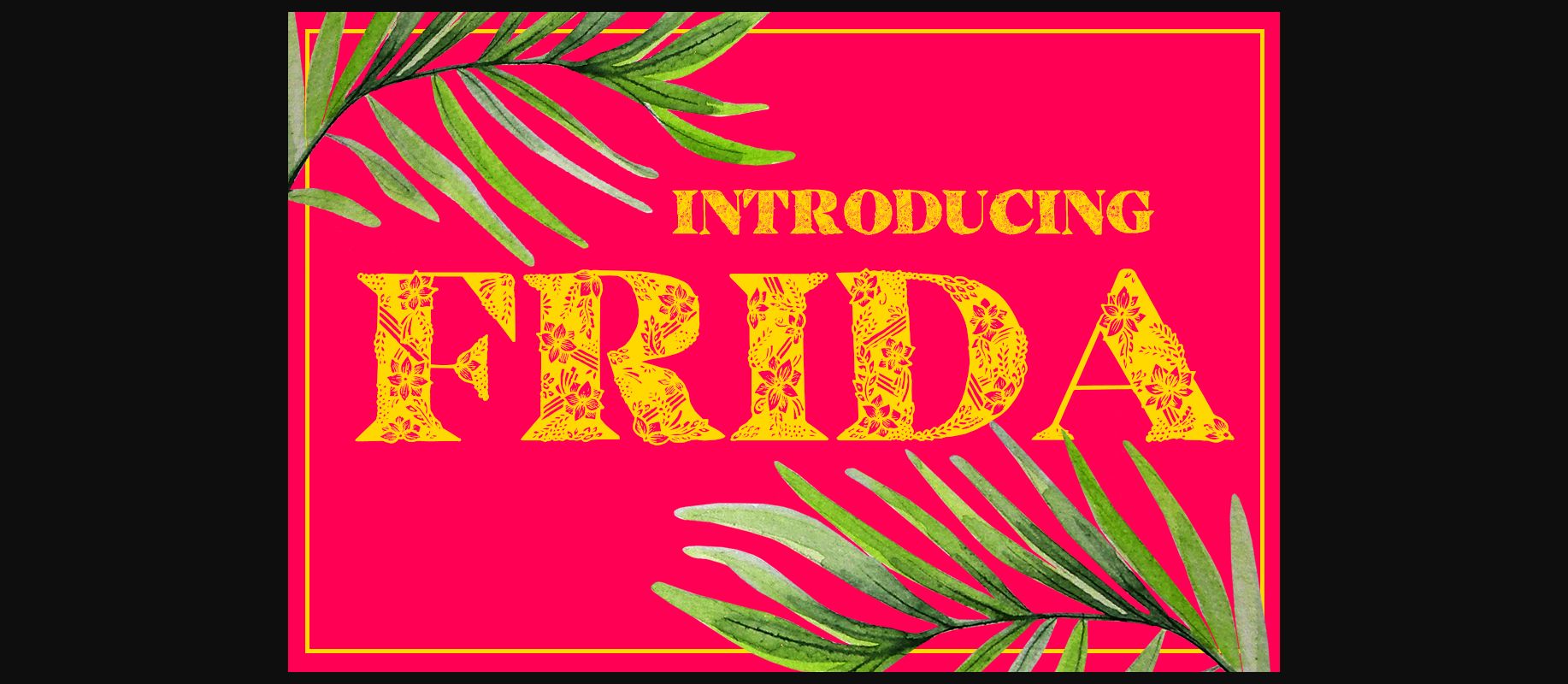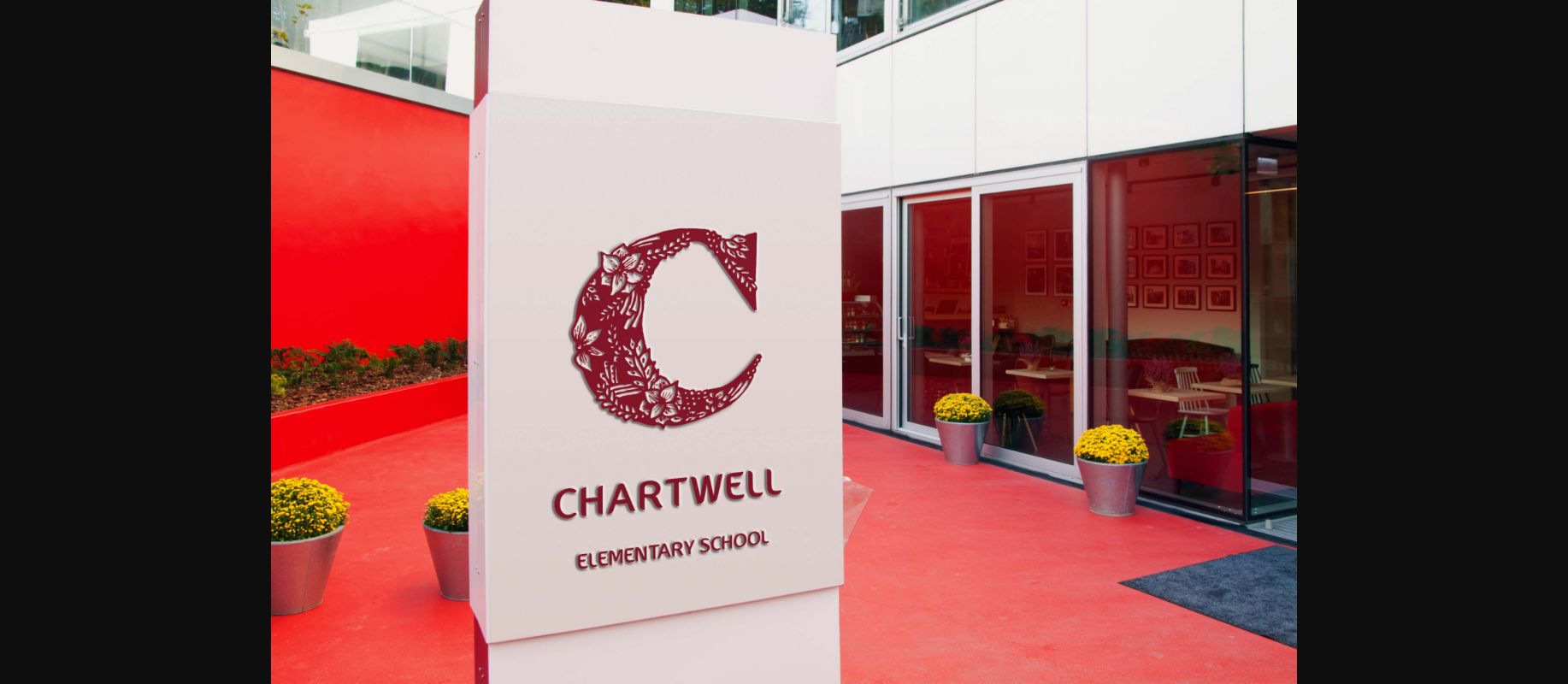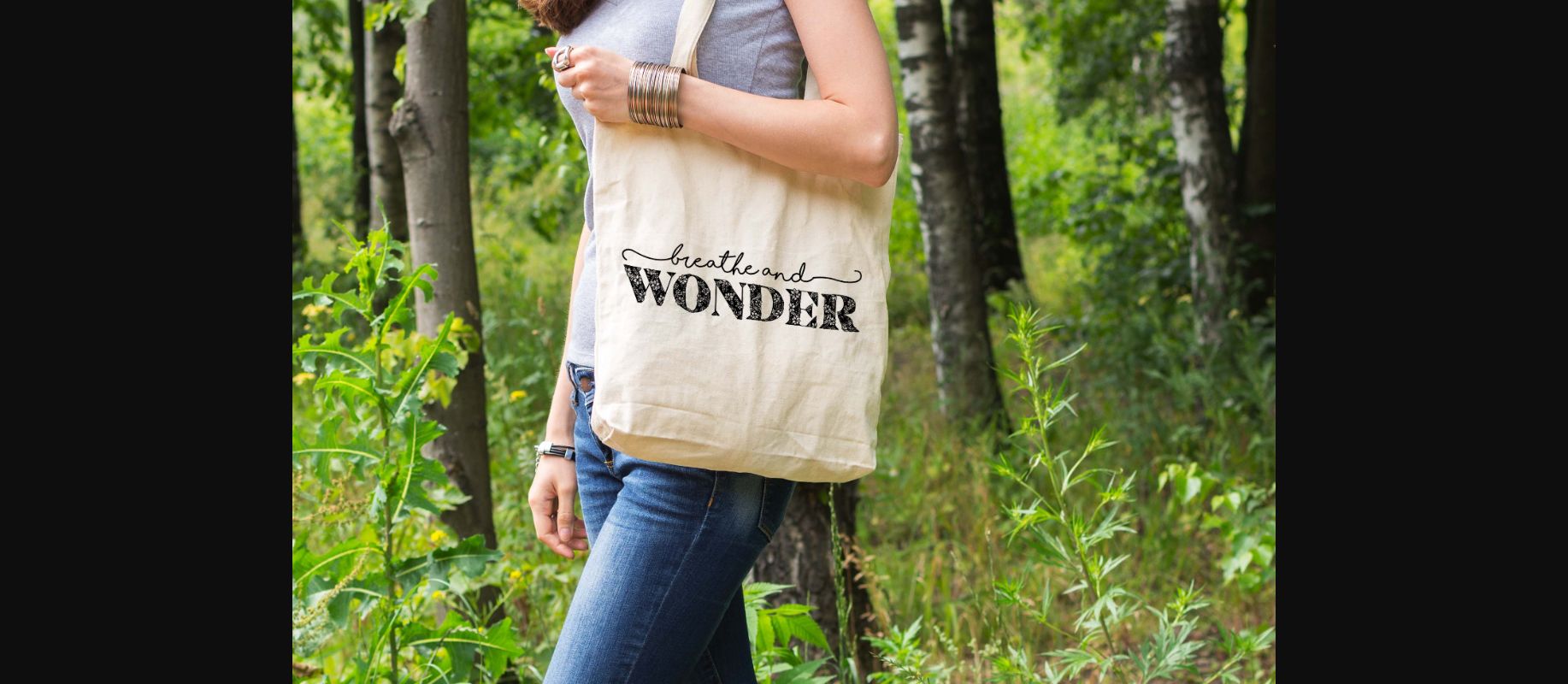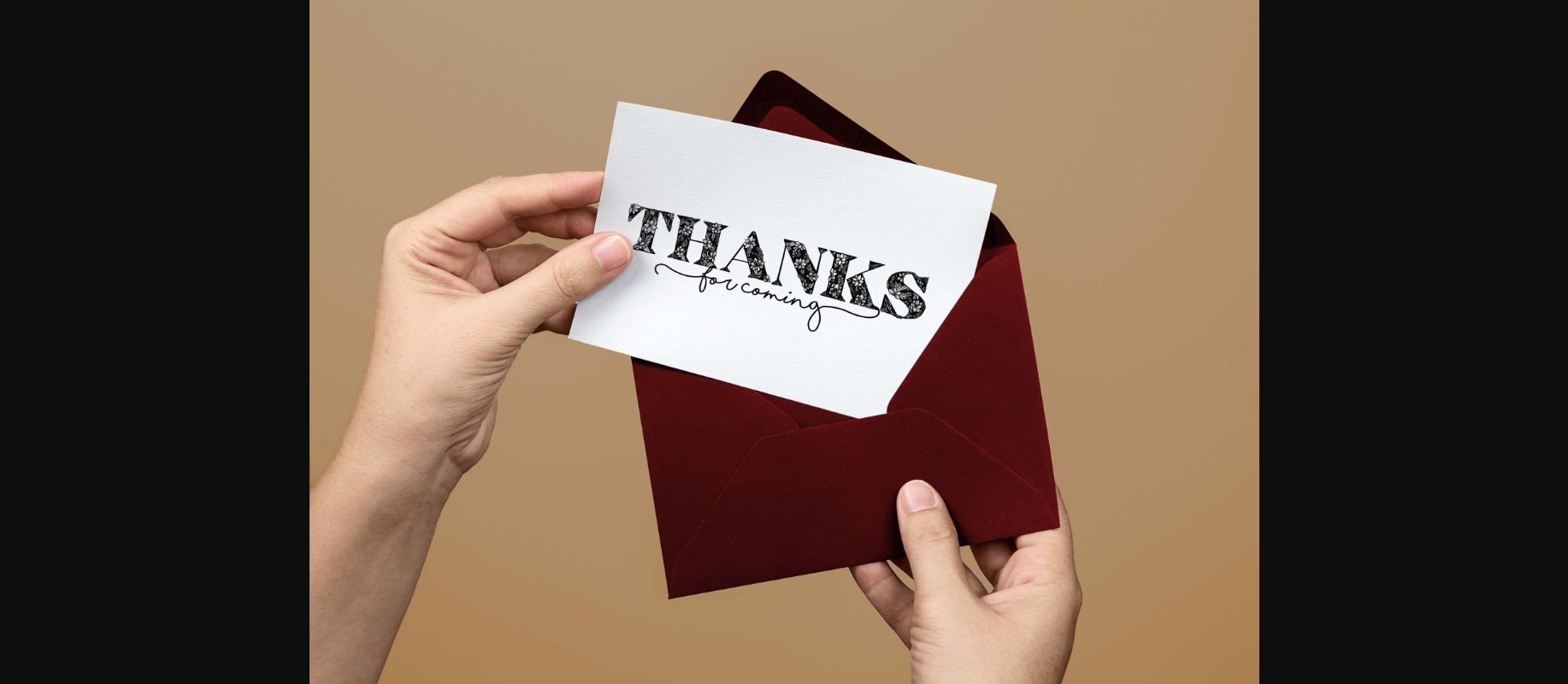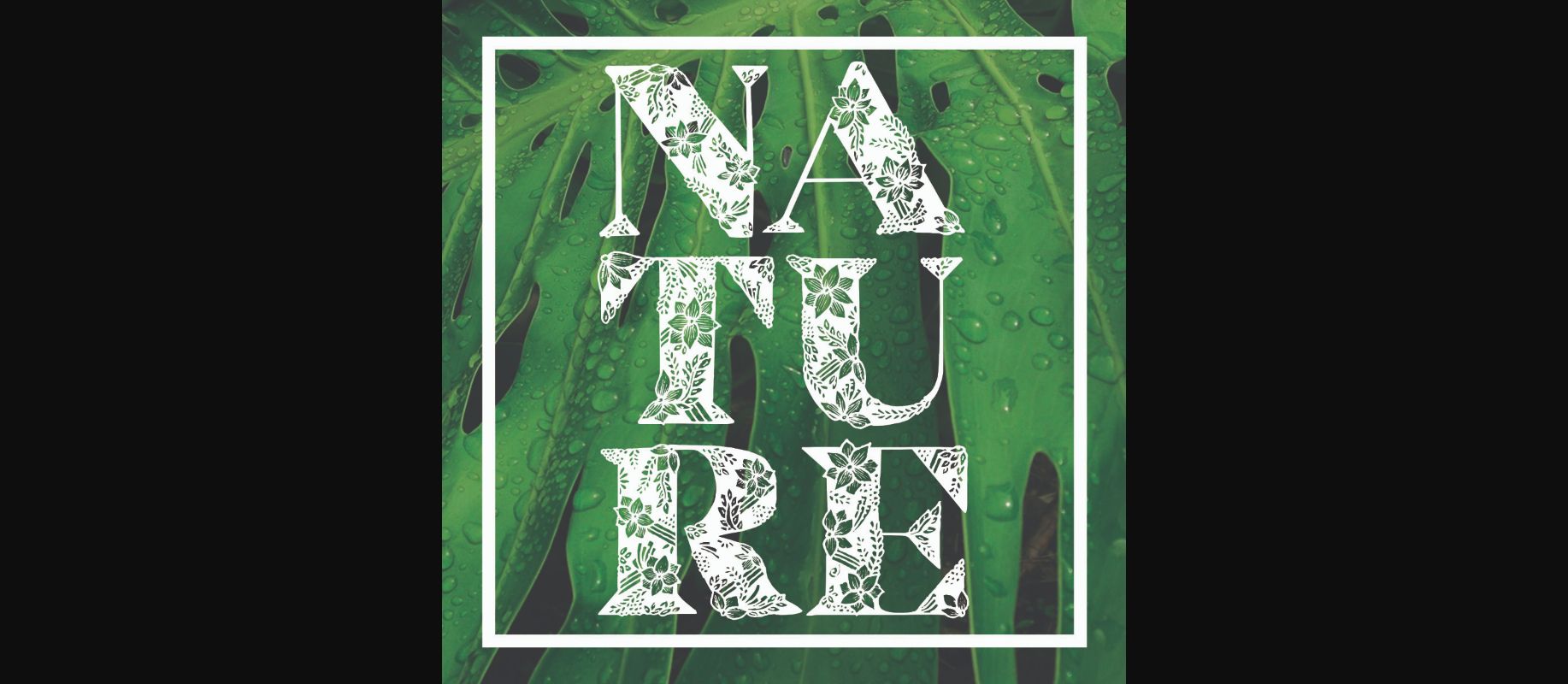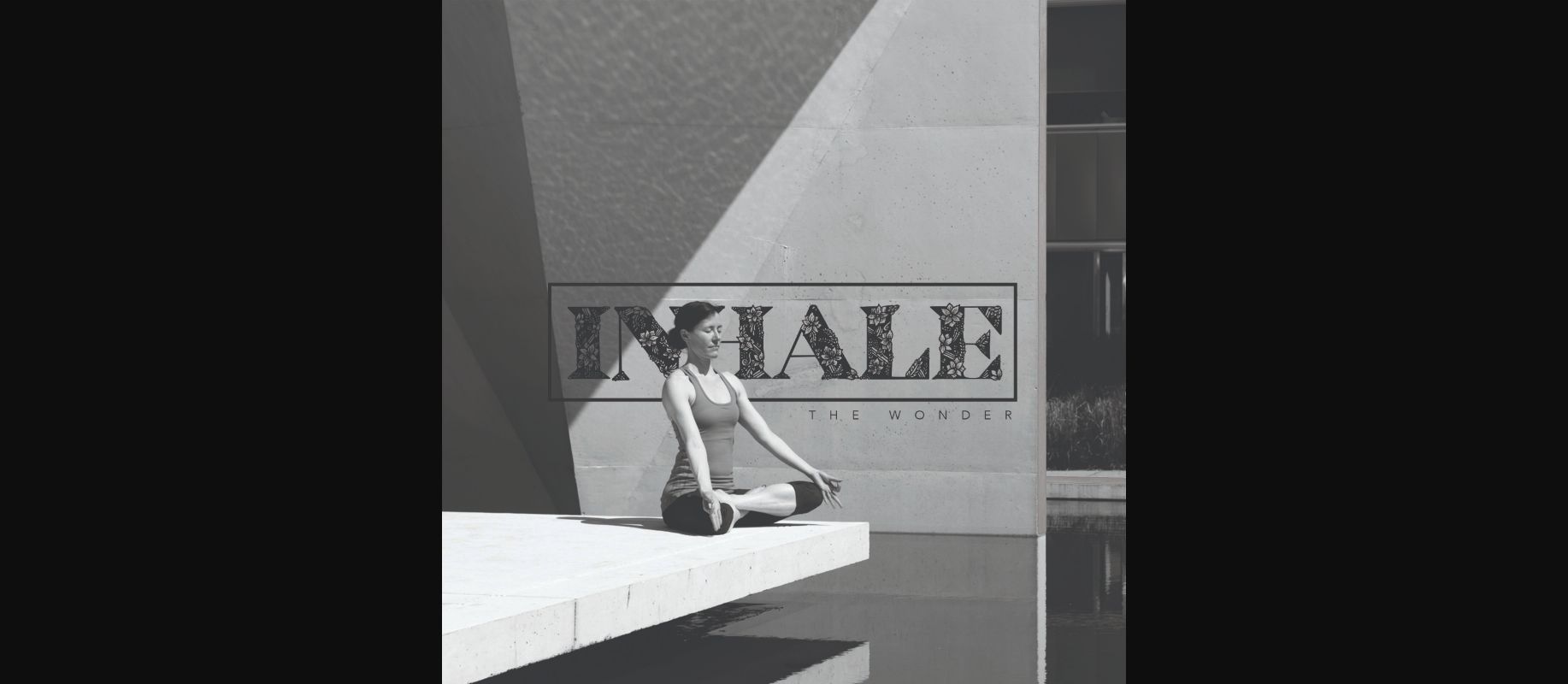
Frida Font
About Frida Font
Frida is a decorative font inspired by Latin American artists since their paintings and stories inspire the imagination. I was personally inspired by the colours on Frida Kahlo’s hair and paintings, as well as and the flower rain on Garcia Marquez’s magic realism stories. Frida is a decorative, hand-made font made to give the opportunity to artists all around to celebrate Latin American culture in their own way.